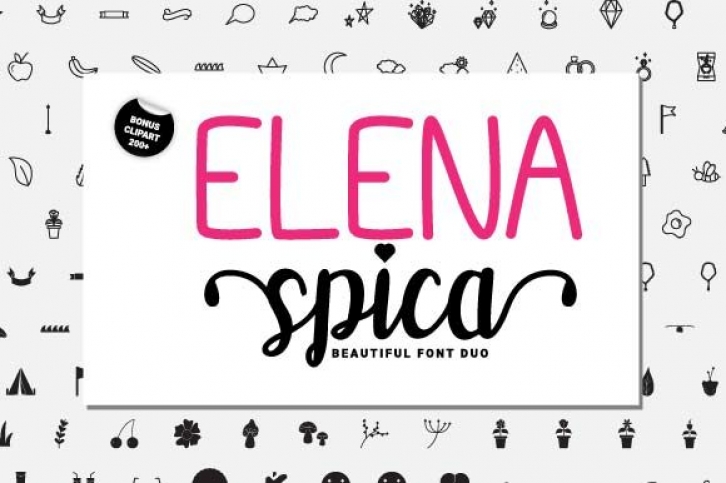
Elena Spica is a unique duo font (Script & Sans Serif) that also includes 200+ clipart that can make your project beautiful. You can use these fonts in your various projects such as logos, branding, quotes, crafts, jewelry, food packaging, book covers, t-shirts, birthday wishes, wedding invitations, photography watermarks and many more.